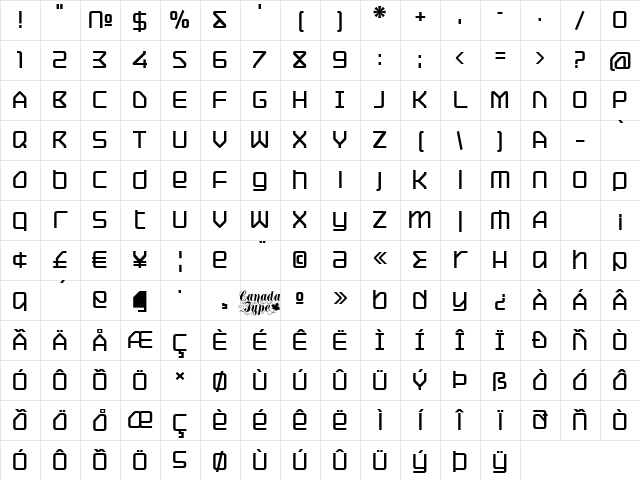
Hydrogen Bold Free Font
Hydrogen Bold
Foundry: Canada Type
Designer: Patrick Griffin
Design Context for Hydrogen
Hydrogen is a composed and adaptable typeface that performs quietly and consistently across a wide range of design contexts. Its bold stroke weight gives it real presence on the page.